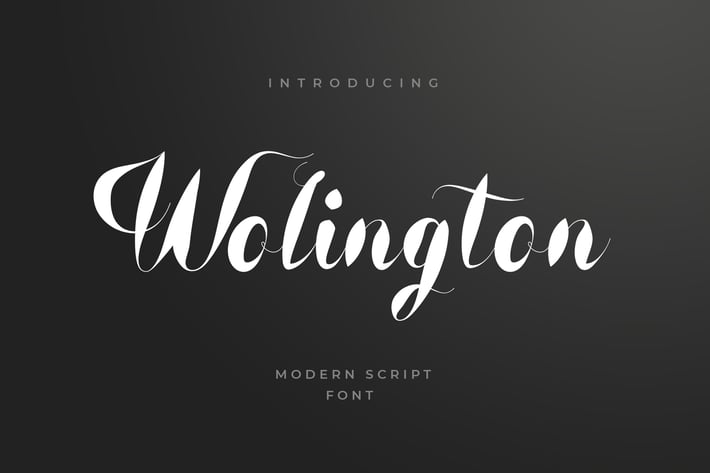
Wolington Script Sans Font
Proudly presents our product Wolington Modern Font that combines classic style fonts moderated consist of 2 different style ‘script and sans’. This font is ideal for those big bold headings or wedding invitations, fashion product logo, wedding card logo, clothing brand logo, Vintage design, badges, and much more.